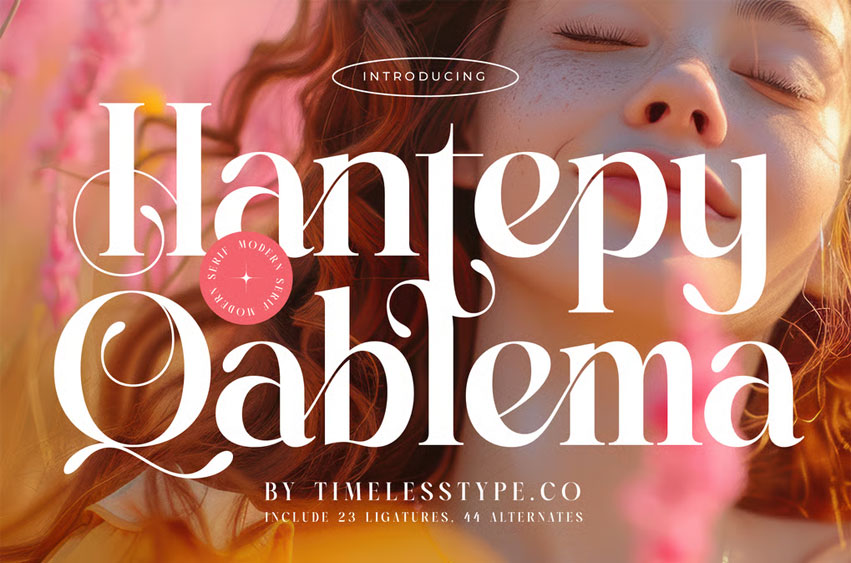
Hantepy Qablema Font is a modern serif font that radiates elegance, charm. Designed with 23 ligatures and 44 stylistic alternates, this typeface offers graceful letterforms and flowing curves perfect for luxury branding, editorial layouts, wedding designs, and high-end packaging.
Hantepy Qablema brings a refined, feminine aesthetic that enhances any project with sophistication and artistry.